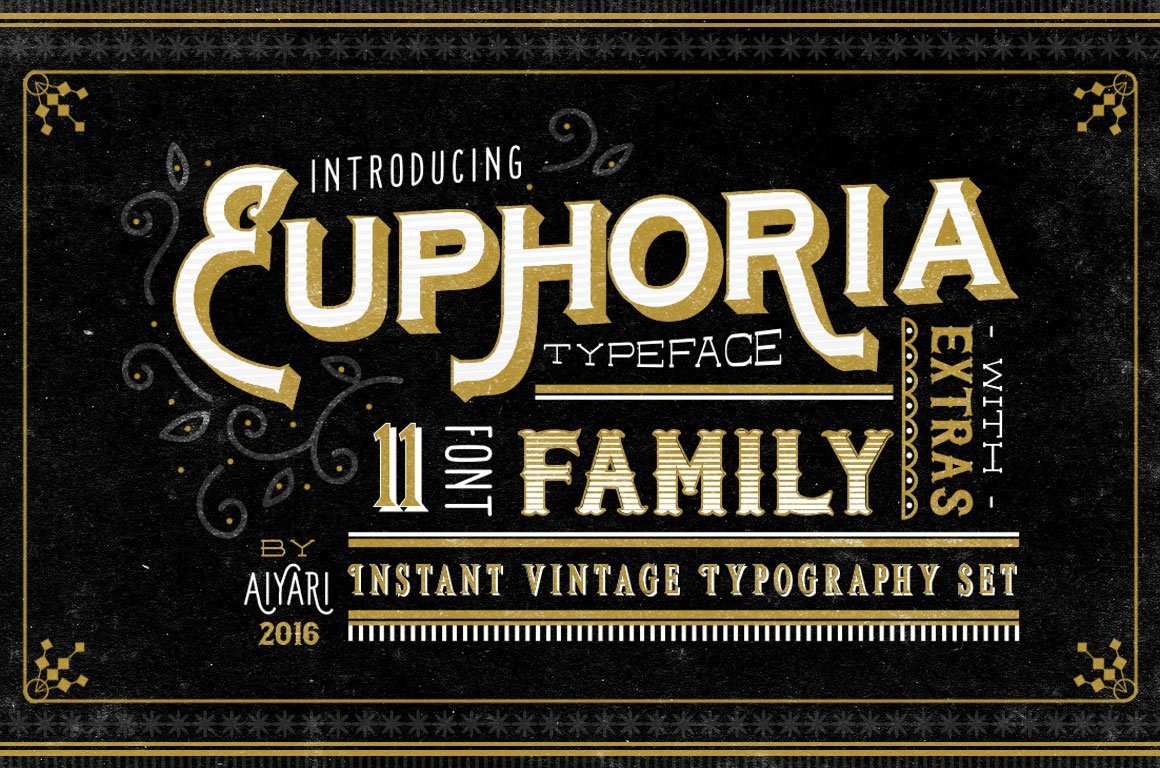
Euphoria Font Family
Introducing Euphoria Font Family.
Euphoria Font FamilyWell crafted typeface inspired by victorian and vintage typography. With 11 font and 1 extras files that work well together to make an instant vintage design. The typeface Ideal for : Logo, quotes, invitations, signage, poster, greeting cards, packaging, headers, printed quotes, cover album, et